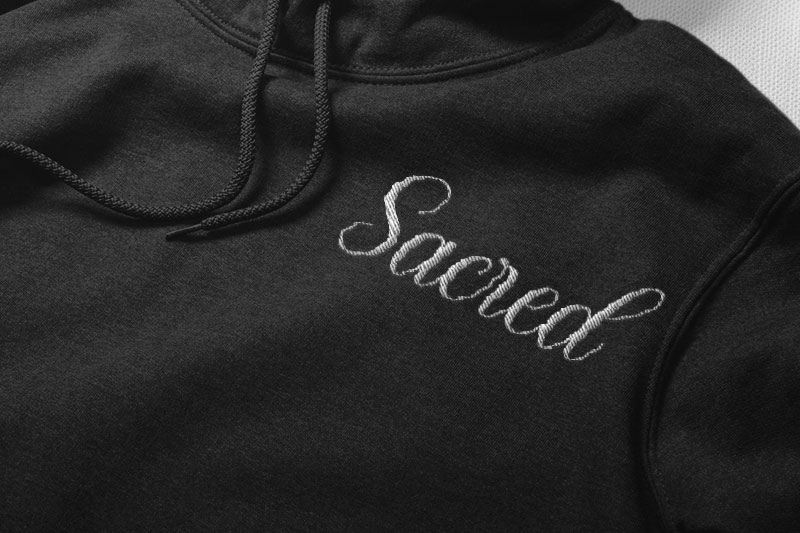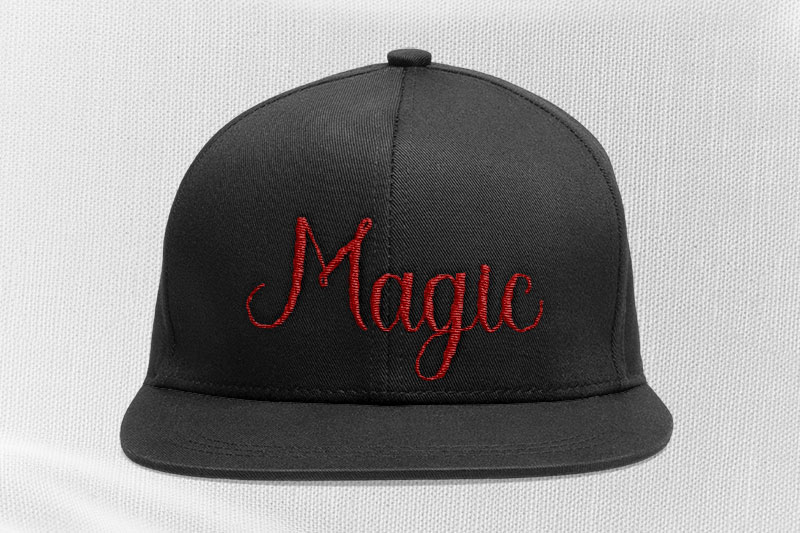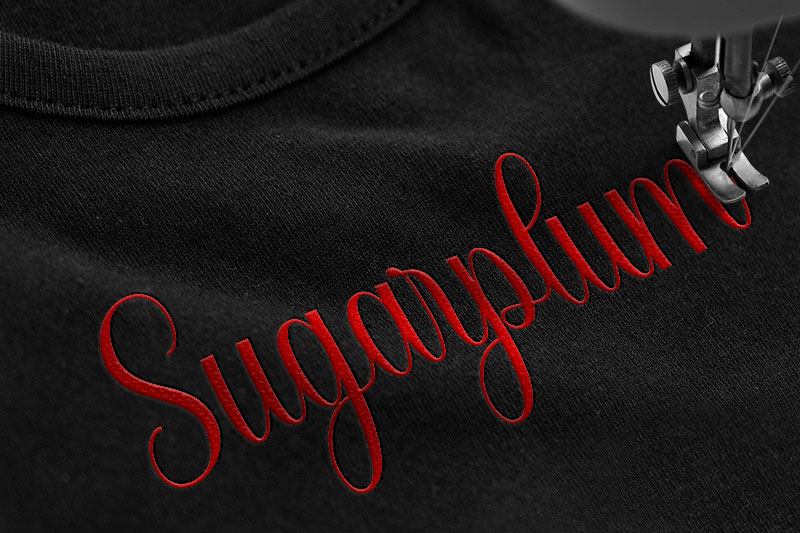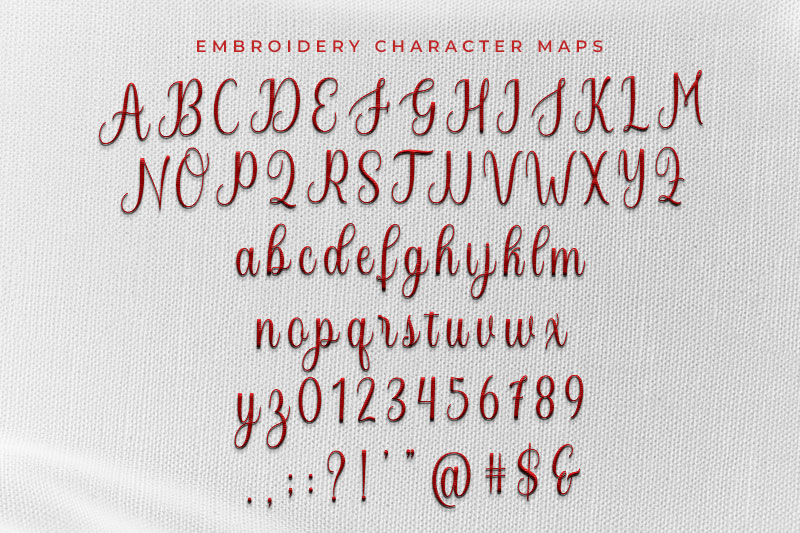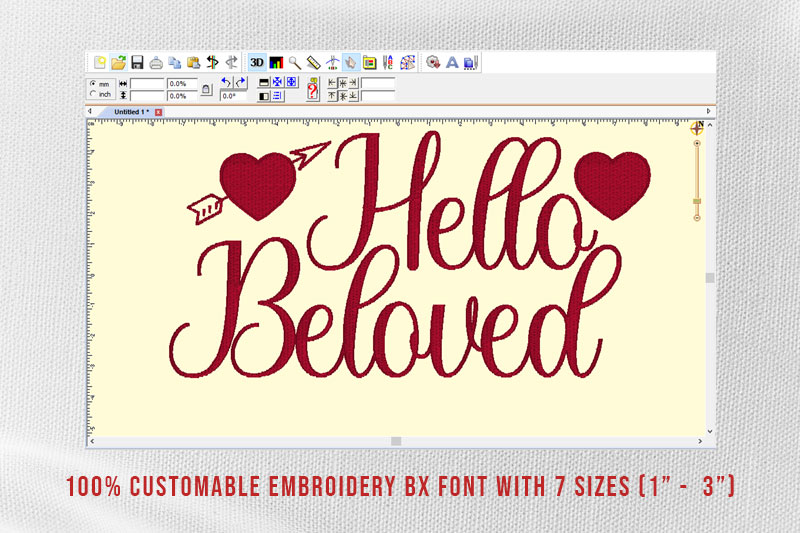
Hello Beloved Embroidery Font
Hello Beloved font is part of the embroidery font. This font is one of the collections you can see on the Kong Font website. This font has unique and simple characteristics. Also, we can see that every letter has a beautiful curve. Even though it is in the form of an arch that seems to connect between shapes, this font is quite legible when used at a moderate size, not too big and not too small.
Hello Beloved font characteristics description shows how this font has a warm and sweet impression. It can characterize Hello Beloved when it borders with other fonts. When combined with girly or pastel colors, the sweet impression that she has will shine even more strongly
Good impressions and characteristics can make Hello Beloved font one of the best fonts that can be used for embroidery on hoodies, sweaters, t-shirts, and hats. This font can be printed on event banners, posters, and invitation letters. The application of this font does not require the addition of excessive ornaments because the form of Hello Beloved is already quite a sight to see. It is a legible font when printed or embroidered at a medium size, and becomes an illegal font when printed at a large size.